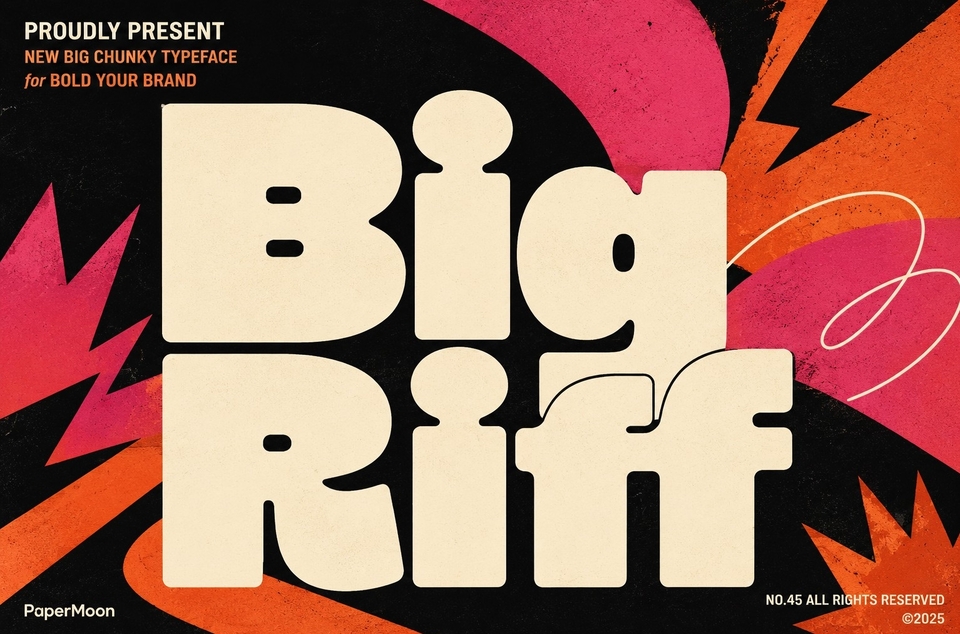
Big Riff — Bold Minimalist Sans Serif Display Font
Big Riff is a bold minimalist display font with chunky geometric forms and a strong, confident visual presence. It combines rounded edges with heavy weight distribution to create a modern sans serif typeface that delivers maximum impact in display settings. Every letterform is built for clean, typography-driven designs where the font itself becomes the focal point of the composition.
What it is: Big Riff is a single-style Regular display typeface designed for bold minimalist branding, contemporary editorial work, and high-impact graphic design. Its chunky sans serif geometry gives headlines, logos, and large-scale text a distinctive, memorable character while maintaining the clean simplicity of the bold minimalism movement. The supplied font includes 392 glyphs covering uppercase and lowercase letters, numerals, punctuation, and special characters, making it a practical all-in-one display font for designers who need both personality and reliability.
Key Features: Big Riff includes OpenType stylistic alternates and standard and discretionary ligatures to help you fine-tune your typography. Use alternates to vary repeated characters, adjust the visual rhythm of a wordmark, or give a headline a more distinctive look. Ligatures provide elegant connected letter combinations that keep short text compositions feeling polished and intentional. These OpenType features work in software that supports standard OpenType controls, while the core font remains straightforward to install and use in any compatible design application. Multilingual support covers a broad range of Latin languages, expanding the font's usability across international branding, packaging, editorial graphics, and multilingual digital content.
Applications: Use Big Riff for bold brand identity, minimalist logo design, poster typography, food and beverage branding, contemporary packaging, product labels, editorial headlines, social media graphics, modern restaurant menus, sports and event visuals, gaming titles, apparel lettering, website display text, and clean typography-driven compositions. The bold minimalist style works especially well for creative businesses, lifestyle brands, modern food packaging, product launch campaigns, and any project that needs a confident, high-impact typeface with a clean minimalist foundation.